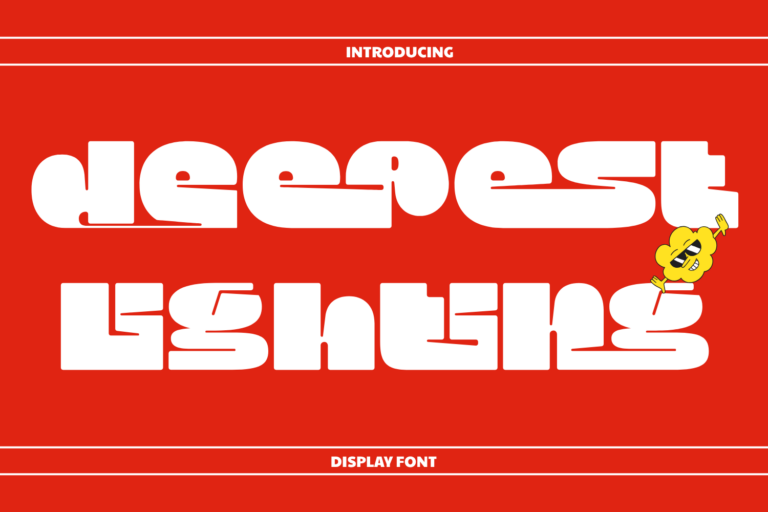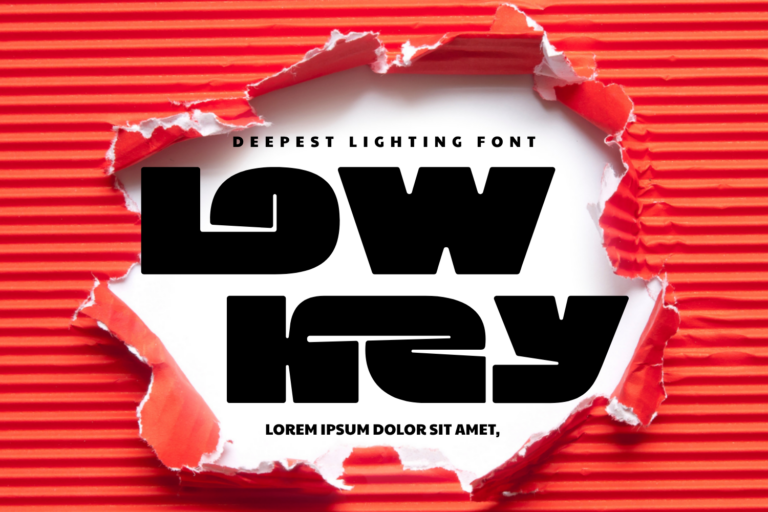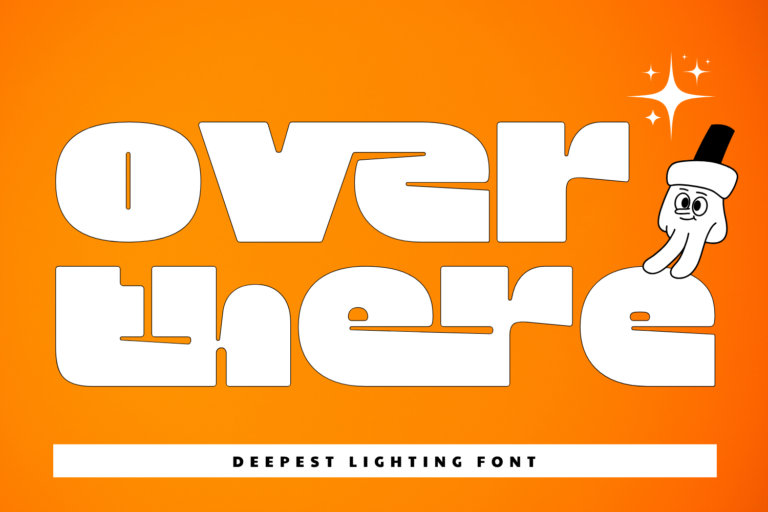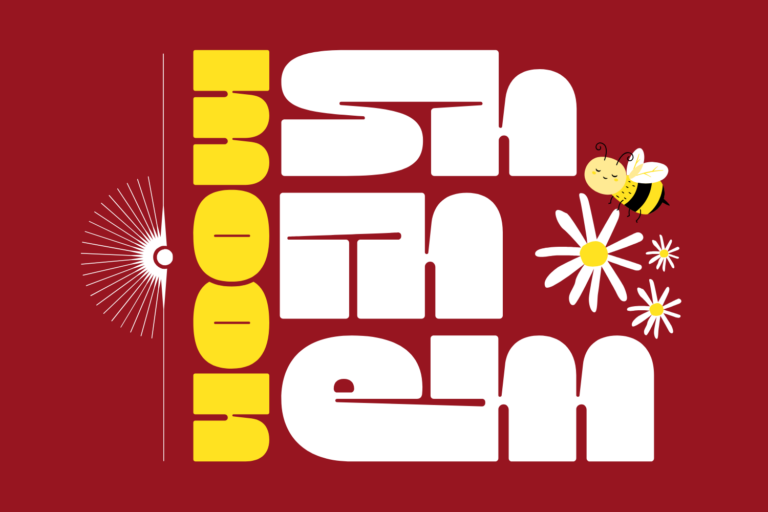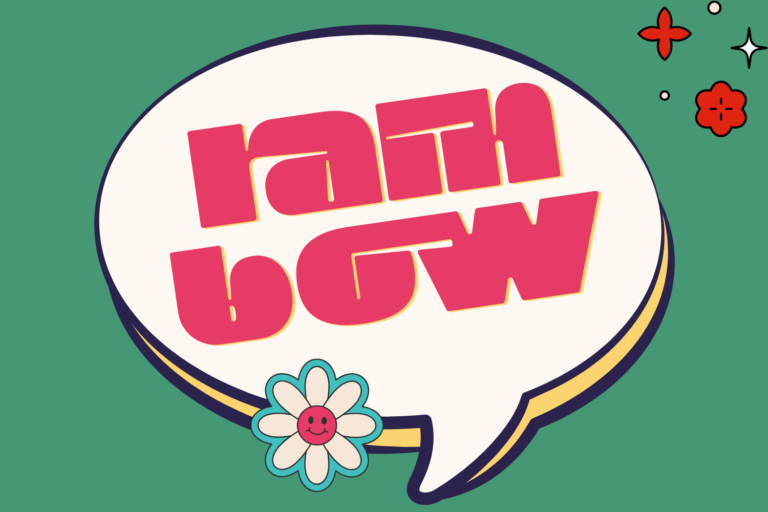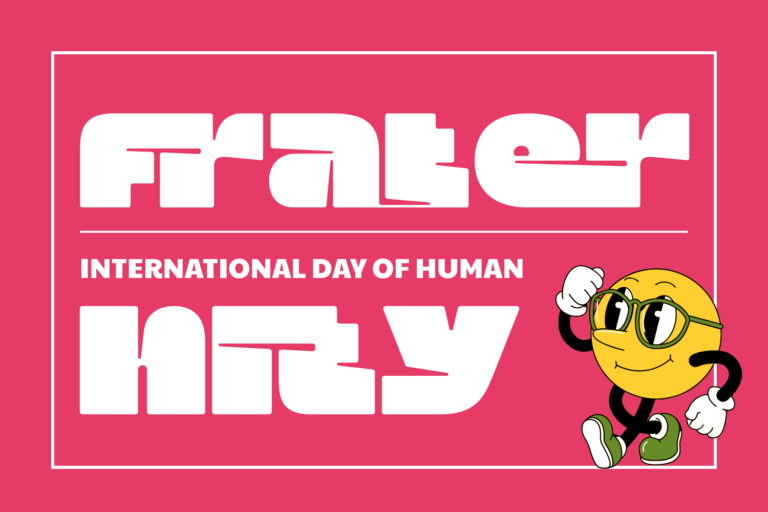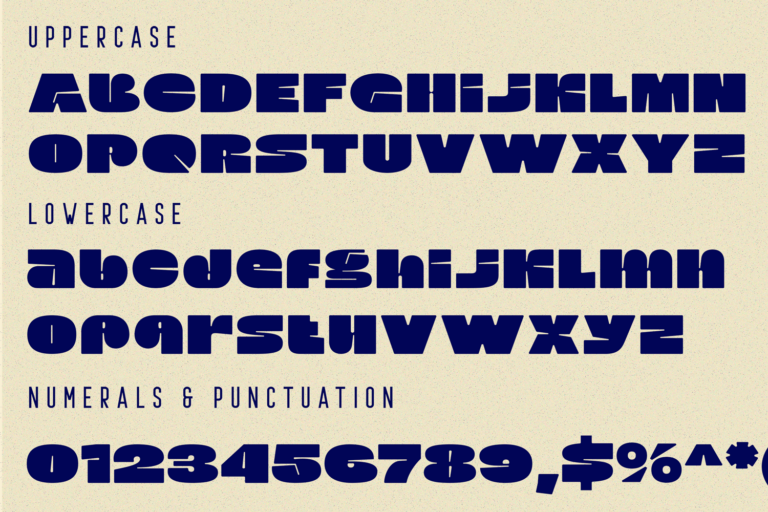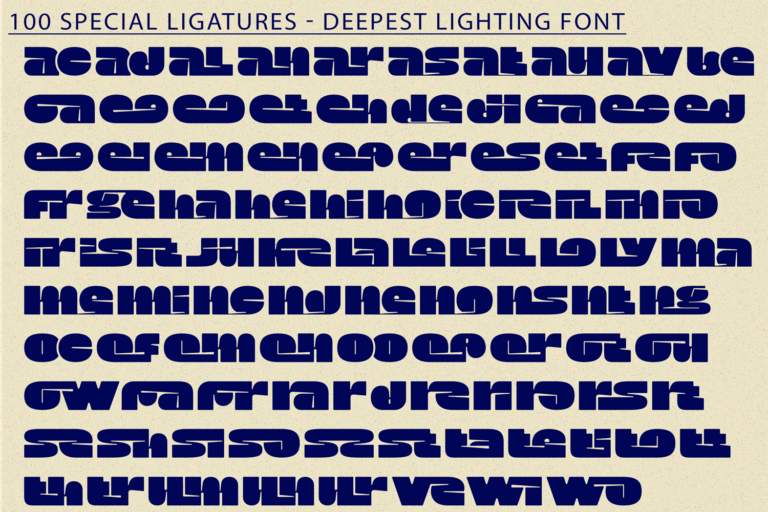
Deepest Lighting Font – Playful Chunky Display Typeface, a bold and quirky display font that brings an irresistible punch of personality to your designs. With its ultra-thick, rounded forms and experimental structure, this typeface breaks the grid and lets creativity flow freely. Its chunky silhouettes, exaggerated counters, and funky rhythm are perfect for music posters, editorial titles, fun packaging, or youthful branding. Whether you’re going retro or just want to stand out, Deepest Lighting is here to play.
• Uppercase and Lowercase Letters
• ~100 Special Ligatures
• Multilingual Accented Characters
• Organic, Playful Aesthetic with Modular Geometry
ac ad al an ar as at au av be ca ce ch co ct de di ea ec ed ee el em en ep er es et fe fo fr ge ha he hi ho ie ic il in io ir is it ju ke la le li ll lo ly ma me mi nc nd ne ng no nt ns oc of om on oo op or ot ou ow pa pr ra rd re ri ro rs rt se sh si so ss st ta te th ti to tr tt um un ur ve wi wo